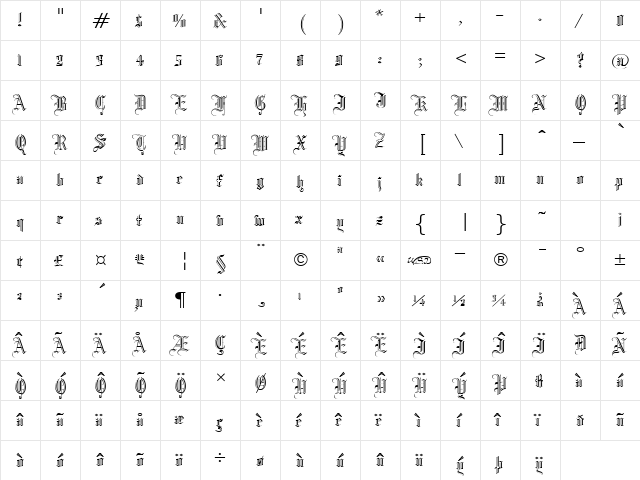
Manuscript Open Regular
Design Context for Manuscript Open Typeface
Manuscript Open brings a calligraphic fluidity to the page — its connecting strokes and expressive curves give it an unmistakably human quality.